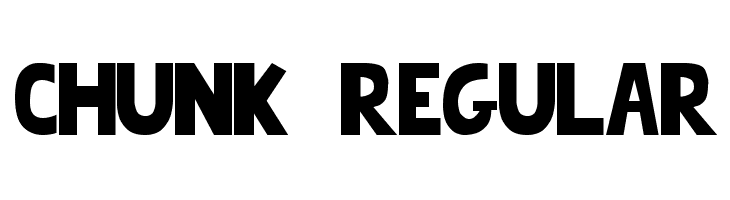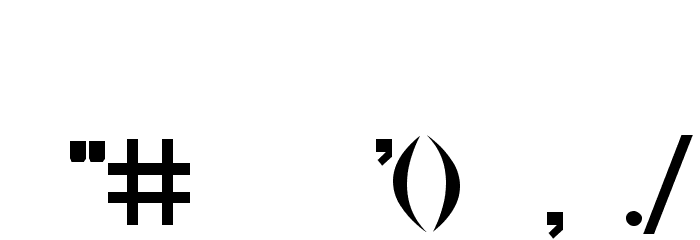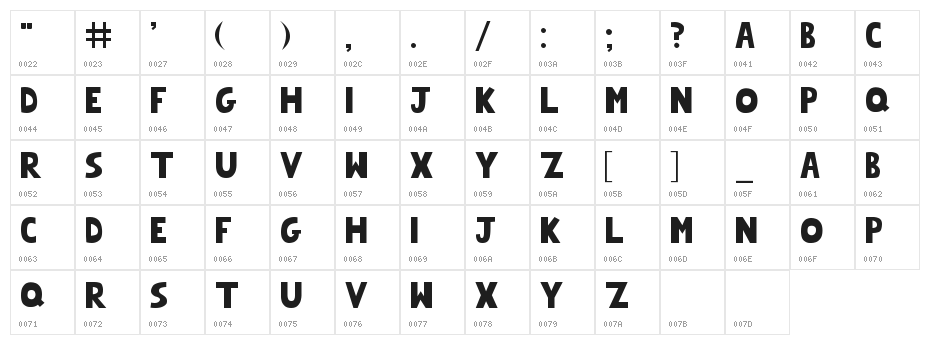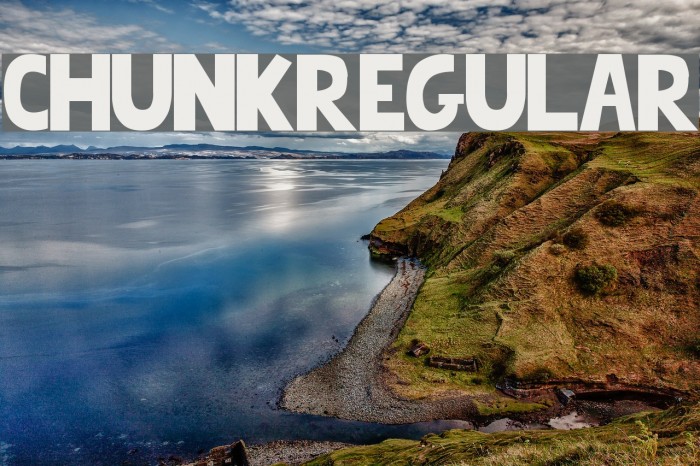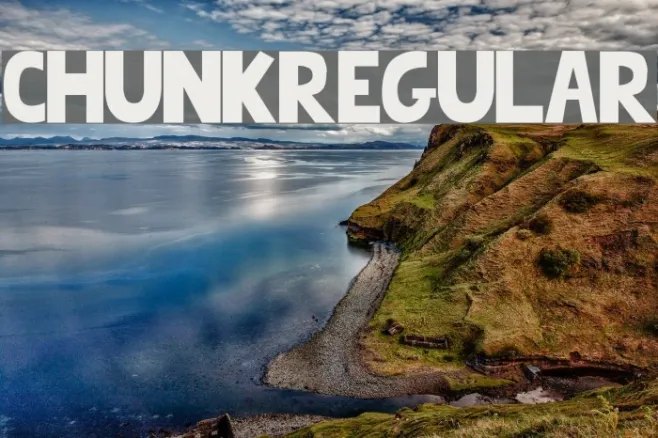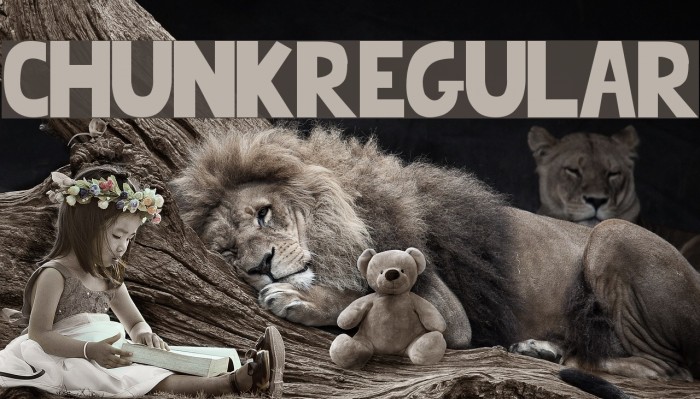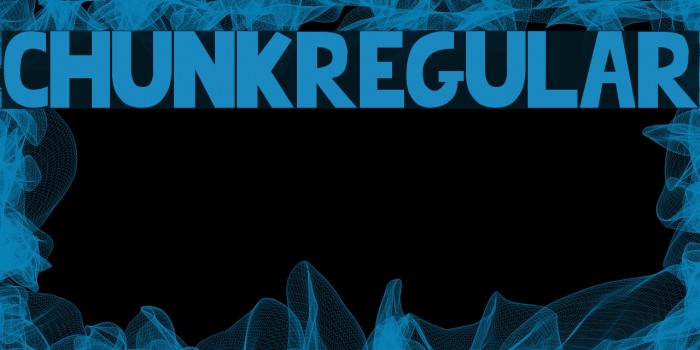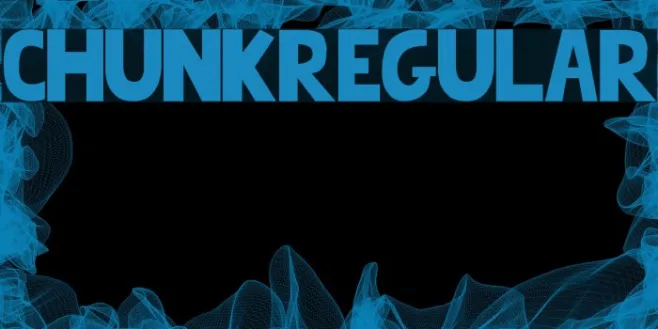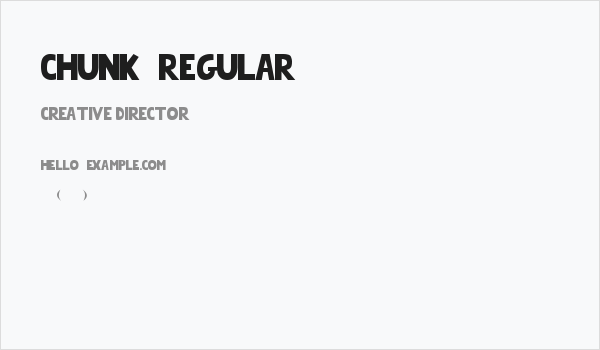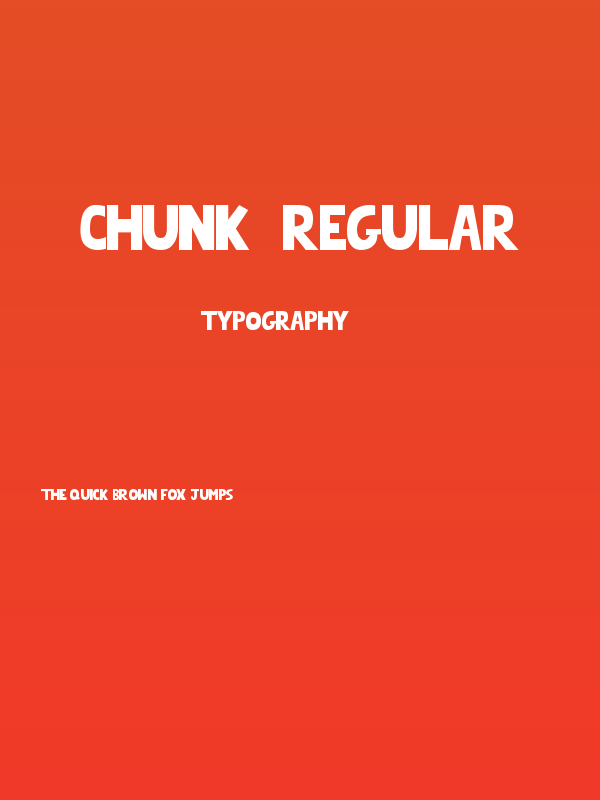
Chunk-Regular Font
Chunk-Regular Description
This font exhibits a bold and impactful style with strong geometric shapes and clean lines. The uppercase letters are particularly striking, with a uniform height and width that convey a sense of stability and strength. The lowercase letters maintain the same boldness, ensuring readability and consistency across different text sizes. The numerals are clear and distinct, matching the overall robust aesthetic. Special characters are designed with the same attention to detail, making them easily recognizable. This font's design is modern and versatile, suitable for a variety of applications where a strong visual presence is desired.
| Proposed Projects | Ideal for branding, advertising, headlines, and poster design. |